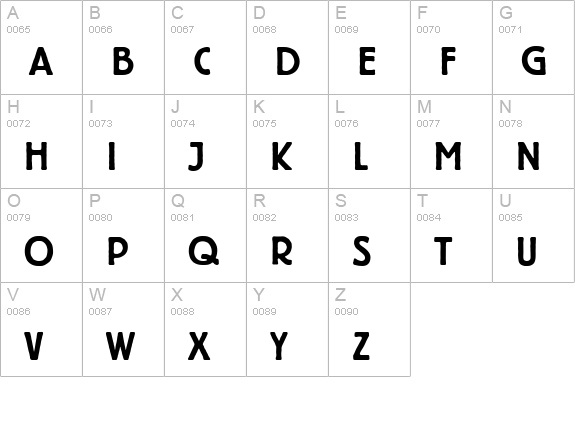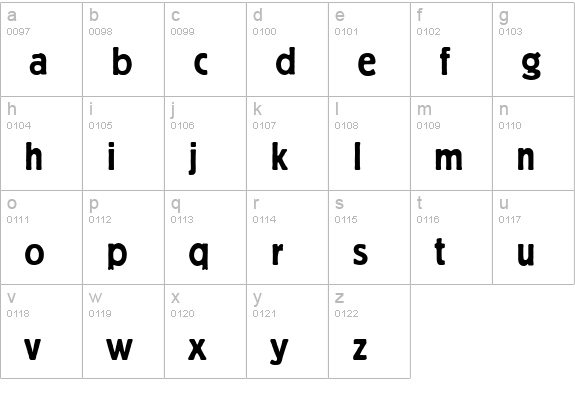
B693-Deco-Bold Font Details
B693-Deco-Bold is a strong, high-contrast variant in the B693 typeface family \xE2\x80\x94 well suited to headlines, attention-grabbing titles, and strong calls-to-action.
B693-Deco-Bold is a striking and modern font that exudes confidence and style. With its bold and geometric design, this font is perfect for making a statement in your designs. The sharp angles and clean lines give B693-Deco-Bold a sleek and sophisticated look that is sure to grab attention. What makes B693-Deco-Bold even more appealing is that it is available for free download at FontsMarket.com. This means you can easily access this stunning font and use it in your projects without any cost. Whether you're creating posters, logos, or social media graphics, B693-Deco-Bold will elevate your designs and make them stand out. Don't miss out on this opportunity to enhance your work with the bold and captivating B693-Deco-Bold font. Download it for free today at FontsMarket.com and take your designs to the next level.